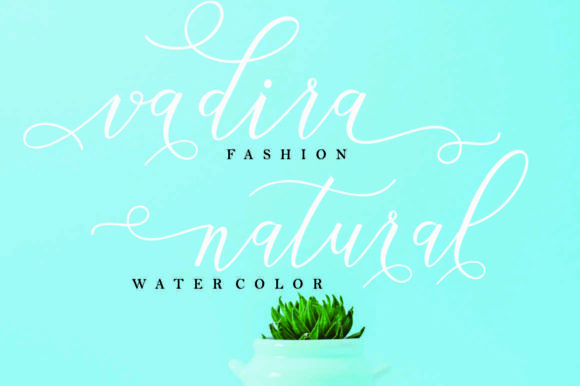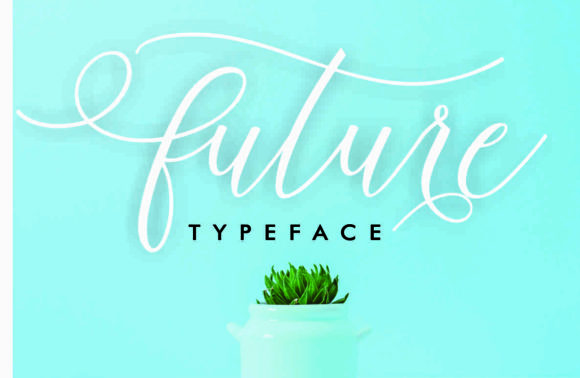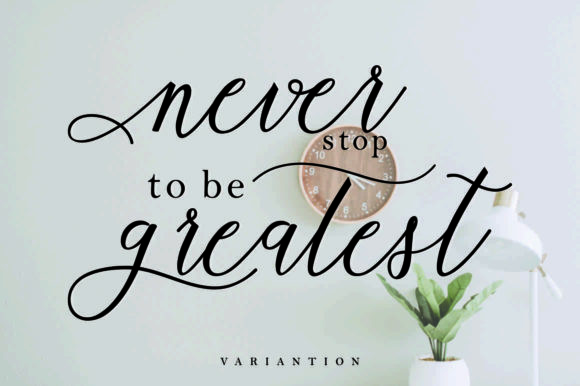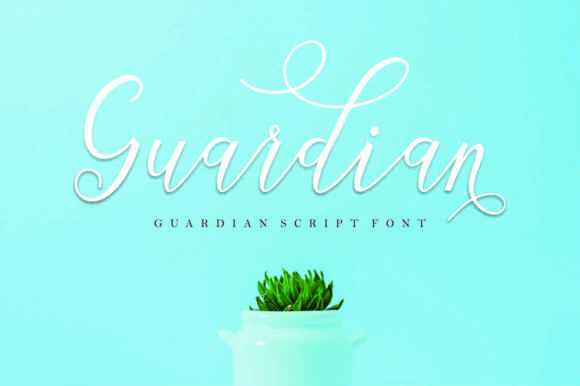
Introduction to Guardian Script Font
The Guardian is a modern script font with a luxurious feel.
This handwritten script is suitable for headlines, logotypes, apparel, invitations, branding, packaging, advertising, and much more .
Key Features of Guardian Script Font
Why Choose Guardian Script Font?